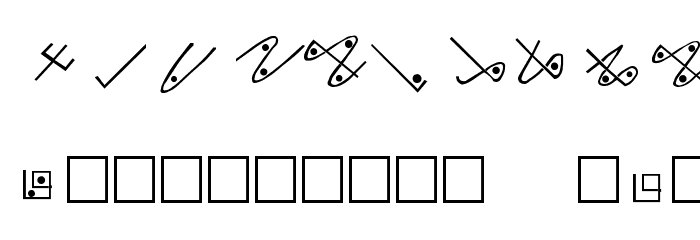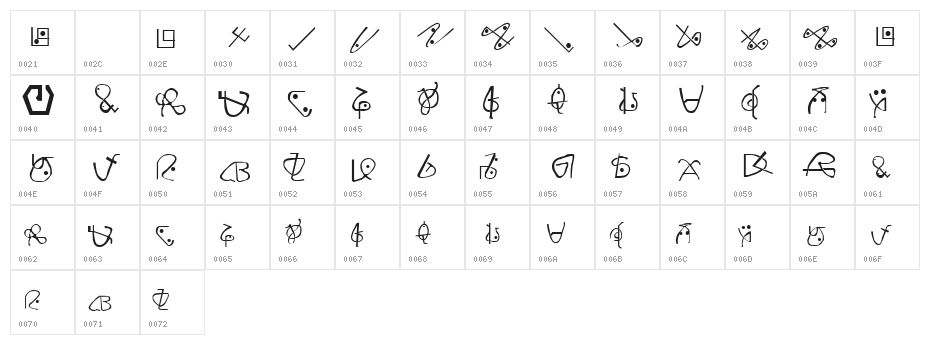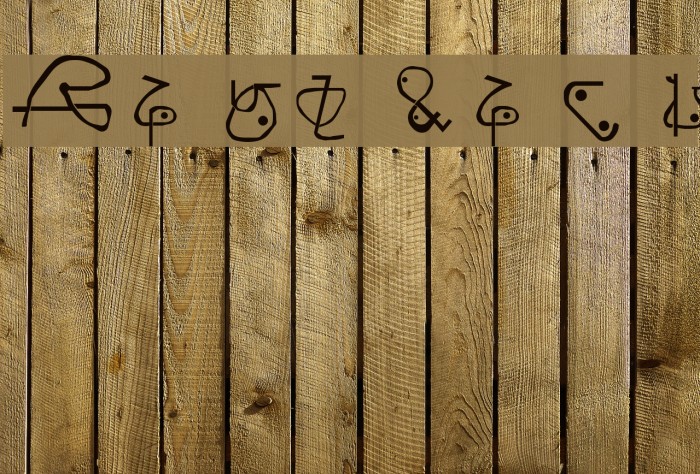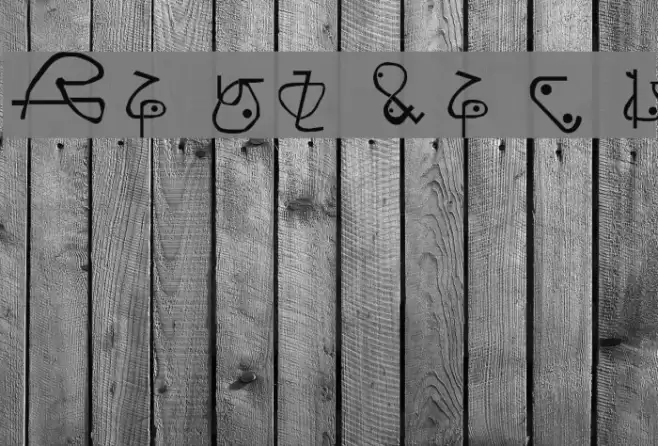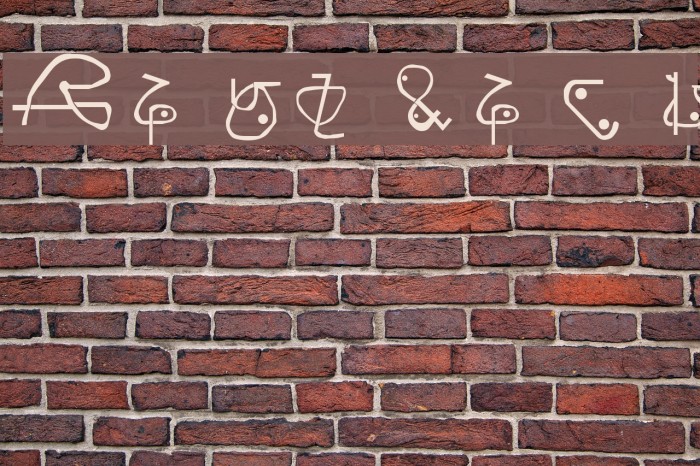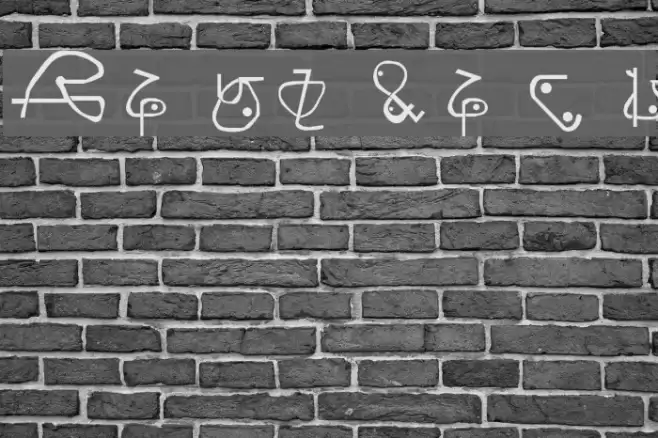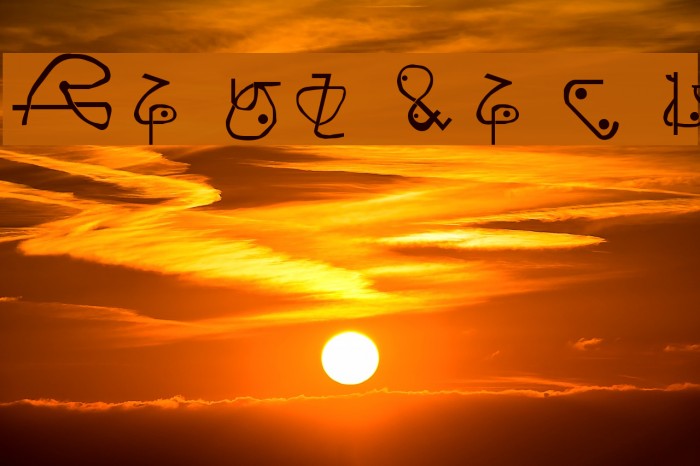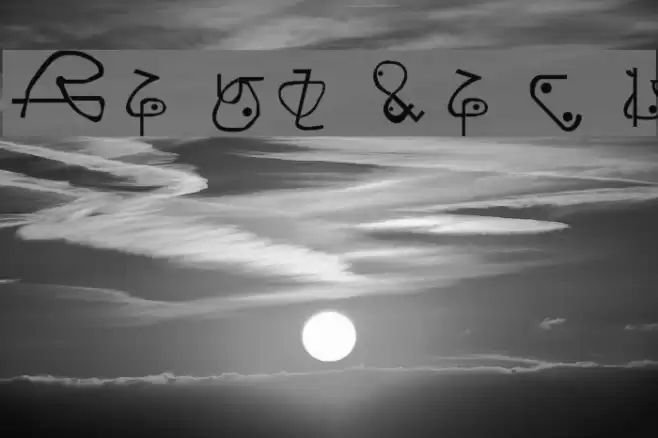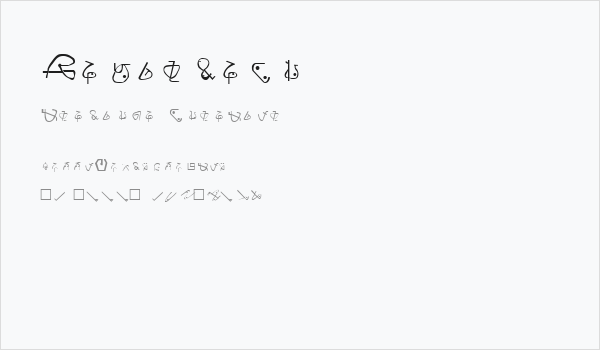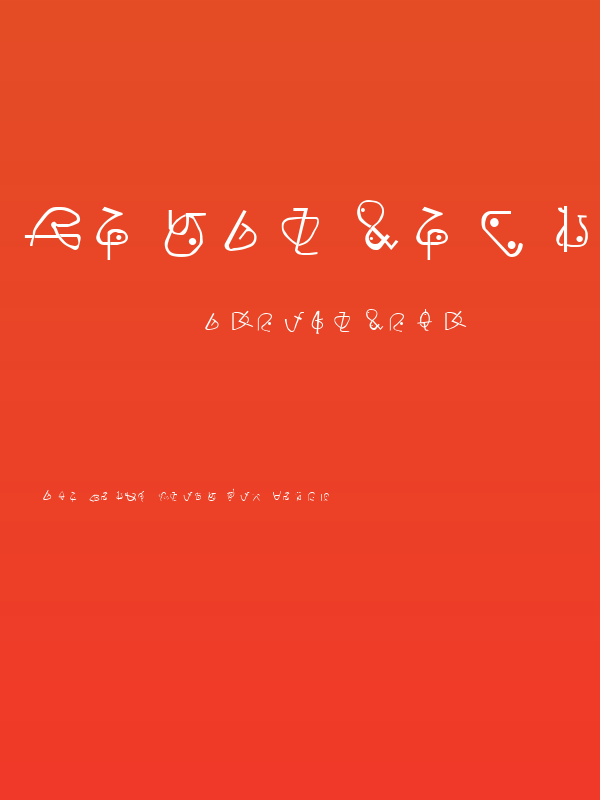
Zentraedi Font
This font features an intricate and abstract design, reminiscent of alien or ancient scripts. Each character is composed of complex curves and geometric shapes, creating a sense of mystery and otherworldliness. The glyphs are unique and do not resemble any traditional alphabet, making it ideal for creative projects that require a touch of the exotic or unknown. The characters are evenly spaced, with a consistent line thickness that adds to its legibility despite its unconventional appearance.
| Use Case | Logos, Posters, Video game interfaces |
| Proposed Projects | Ideal for sci-fi themed designs, video game interfaces, or any project needing a mysterious, otherworldly aesthetic. |